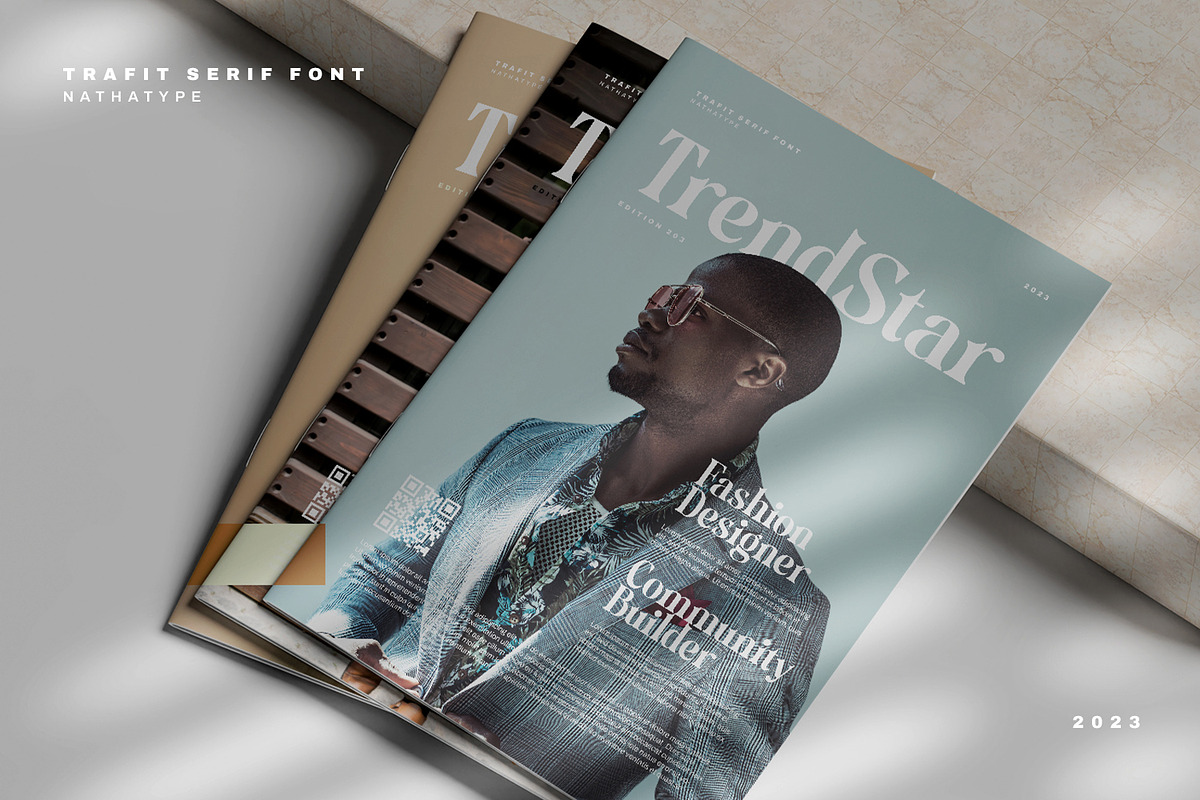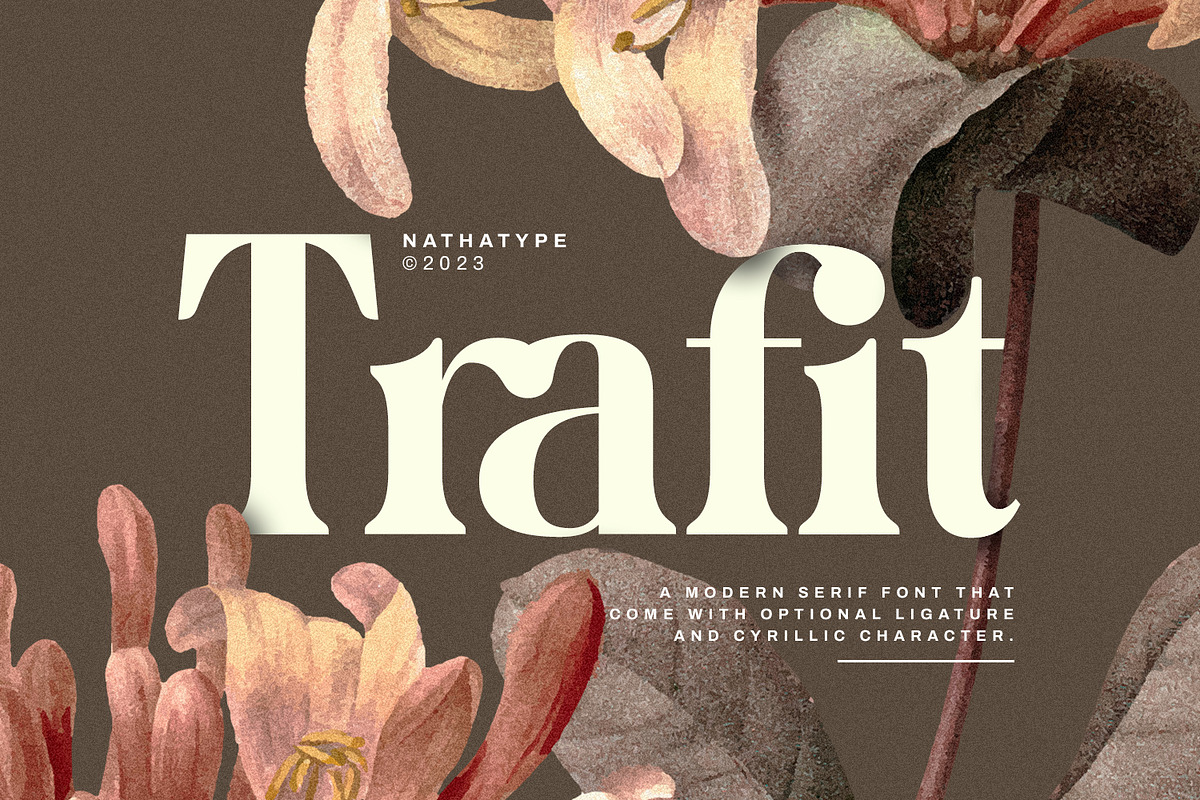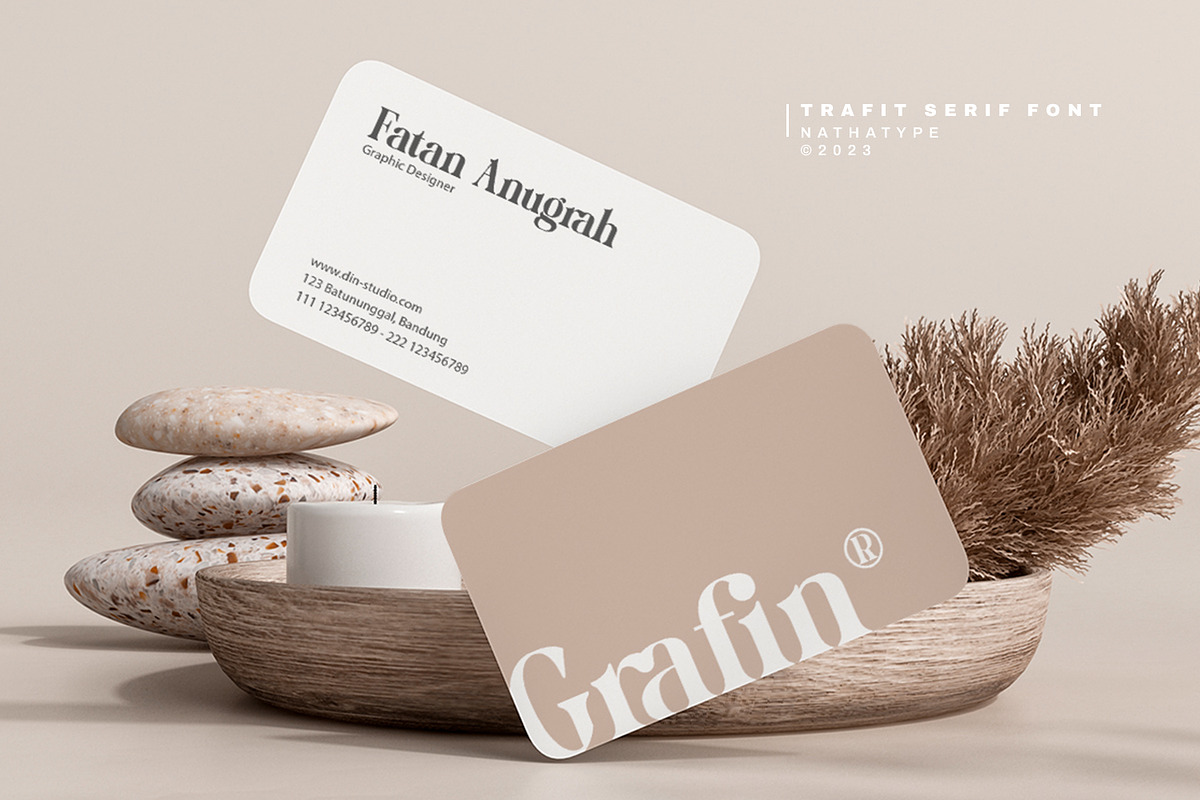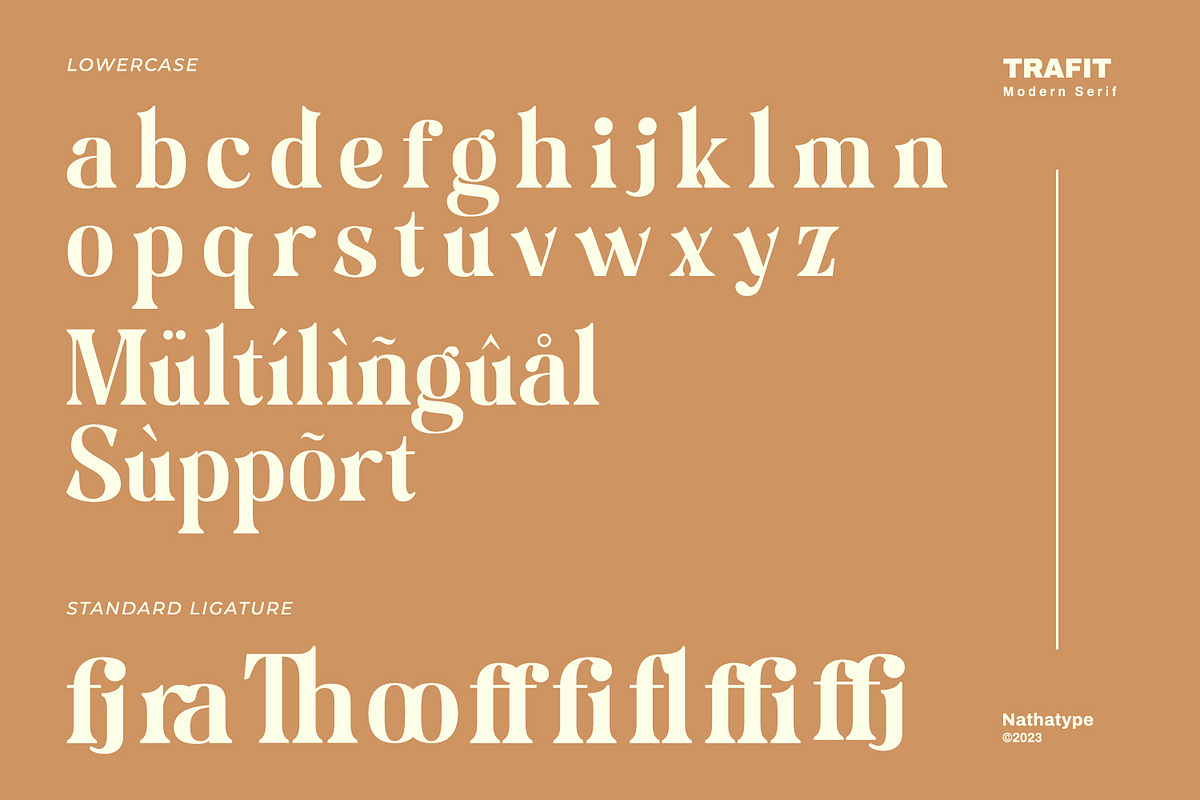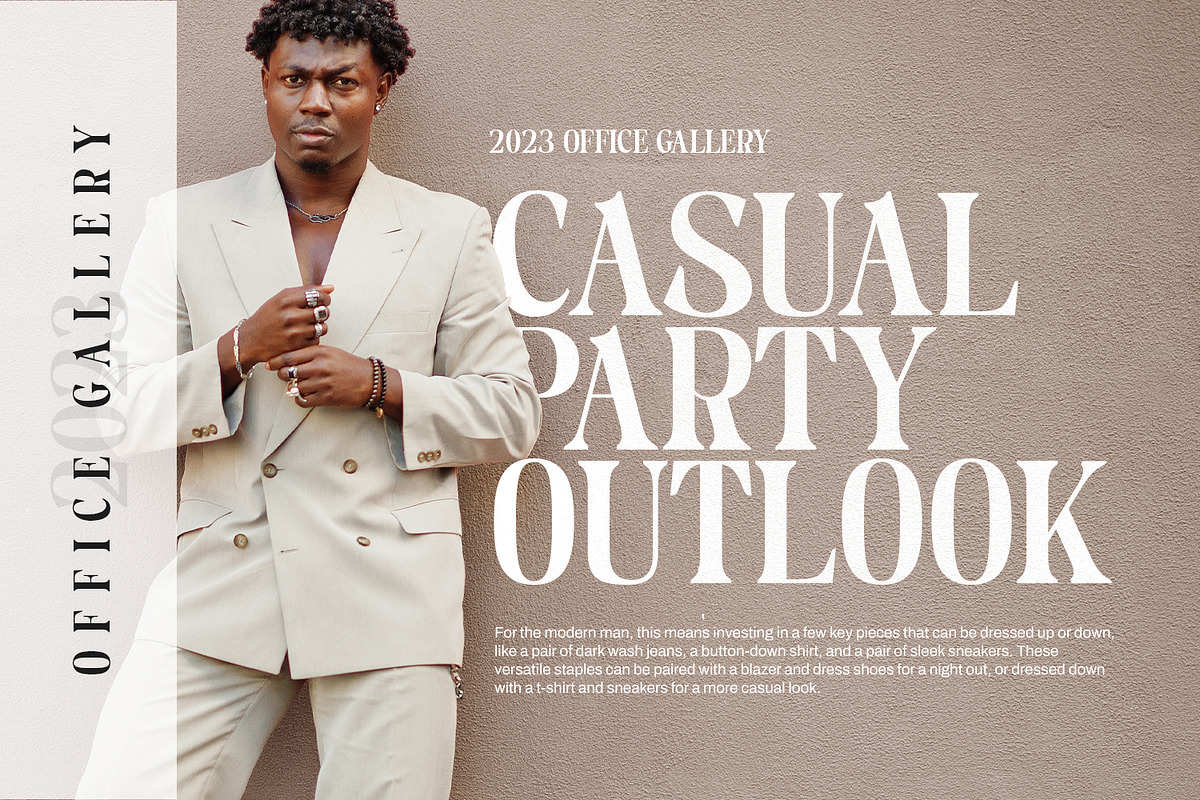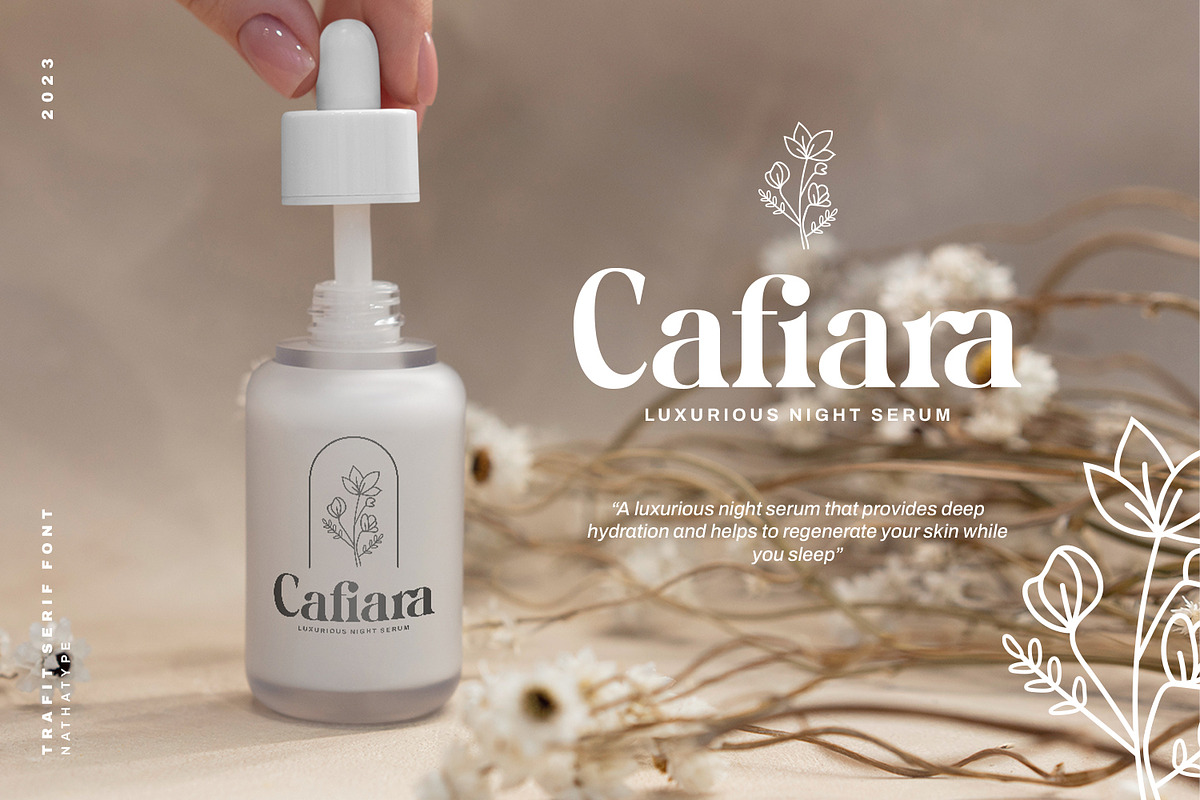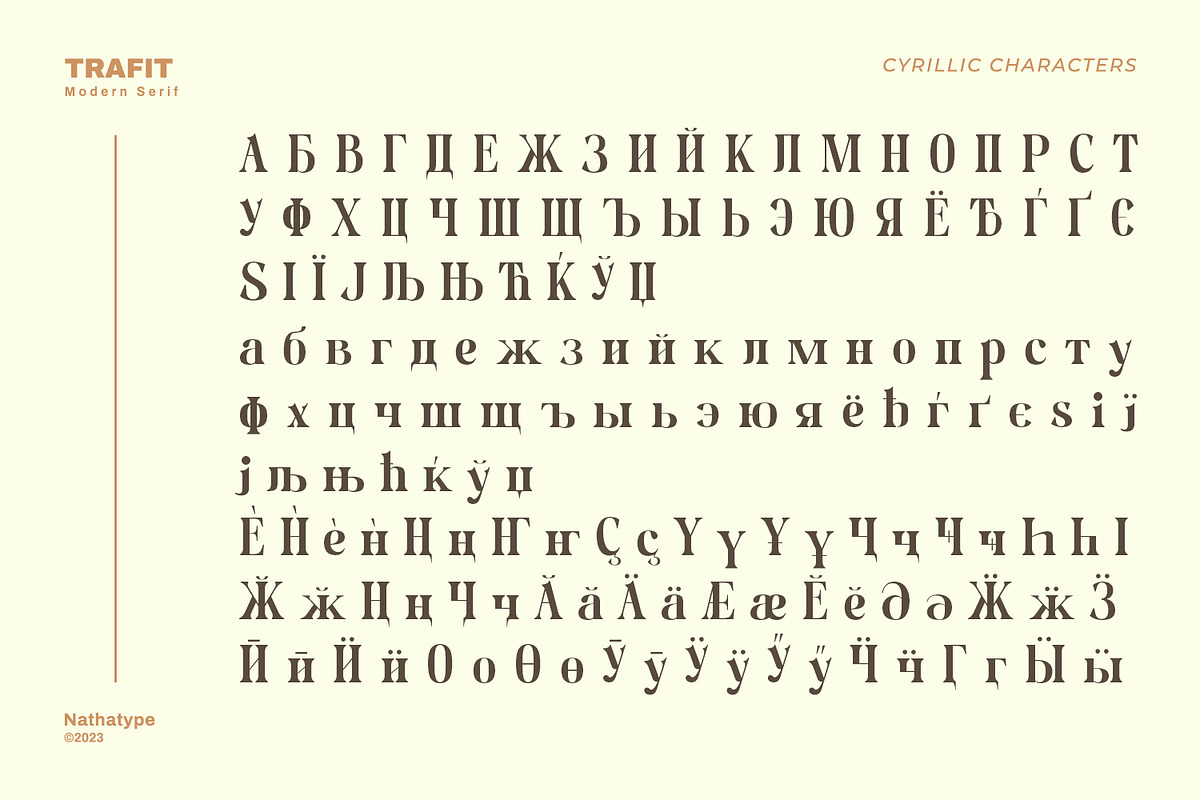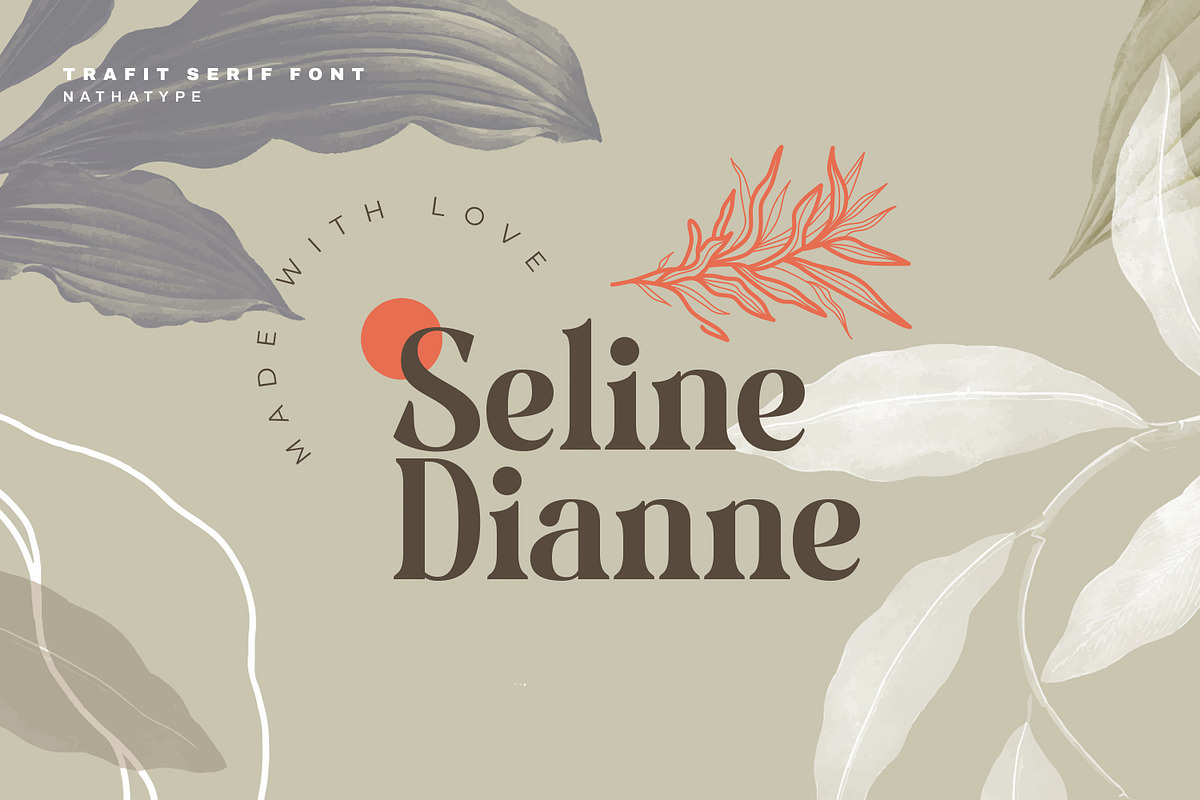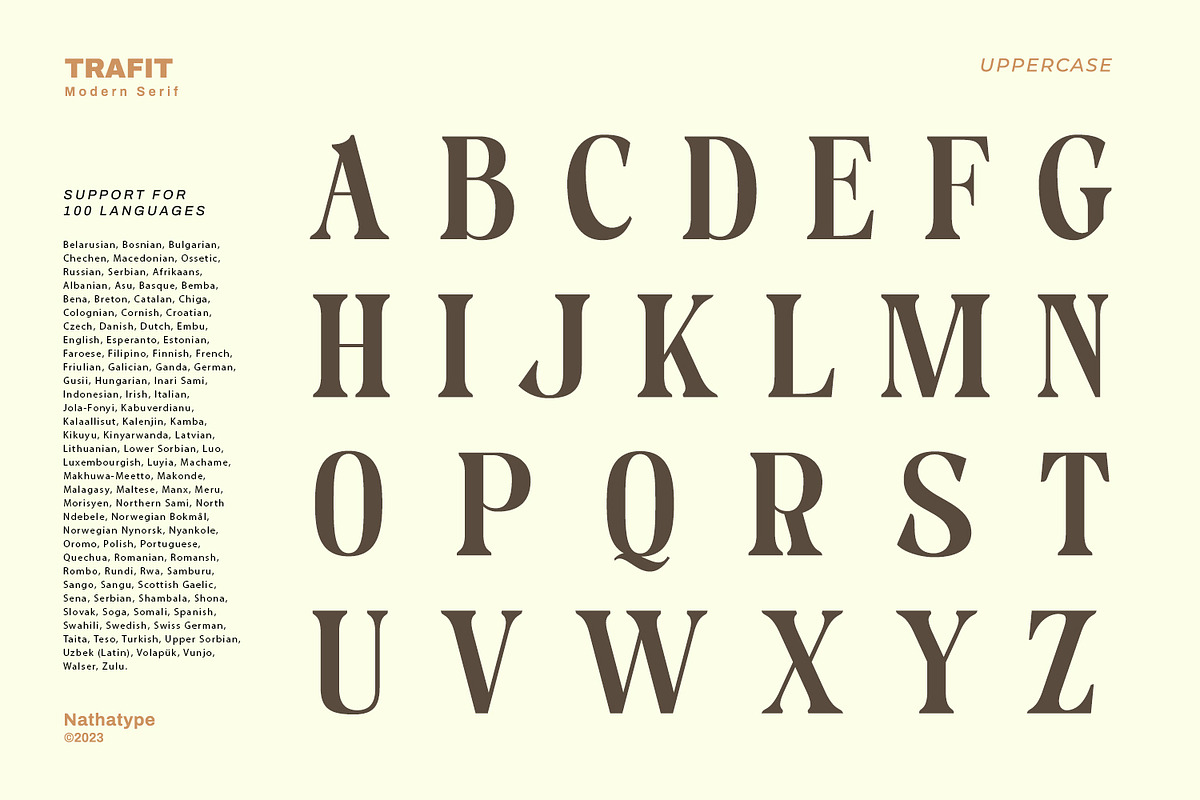
Trafit
This is Trafit, a perfect font to show luxury, class, and eternity. Trafit is an outstandingly designed stylish serif font. Its soft, clean lines and indentations show elegant impressions for your prominent designs. Its letter edges have hooks like the other serif fonts. The simple shapes and even sizes help to make it legible. Due to the great legibility, this font is applicable for any text sizes and length. In addition, you can enjoy the features available here.
Trafit fits best for various design projects, such as brandings, posters, banners, invitations, greeting cards, magazine covers, quotes, printed products, merchandise, social media, etc. Find out more ways to use this font by taking a look at the font preview.